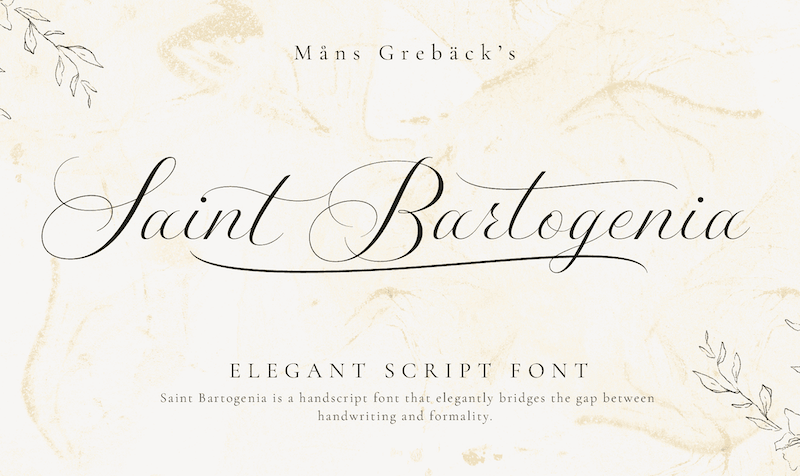
Preview and download Saint Bartogenia Font. Created by Måns Grebäck in Script Calligraphy styles with Free for personal use license.
NOTE: This font is for PERSONAL USE ONLY! To purchase a commercial license, visit: http://mn.sg/saint-bartogenia Saint Bartogenia is a handscript font that elegantly bridges the gap between handwriting and formality. The thin, delicate lines of Saint Bartogenia create a sense of sophistication and grace, making each character swirl across the page like a light wind. Use underscore _ anywhere in a word to make a swash. Example: Ele_gant Use multiple underscores to make longer underlines. Example: Wonder___world For questions, please visit www.mansgreback.com/faq |